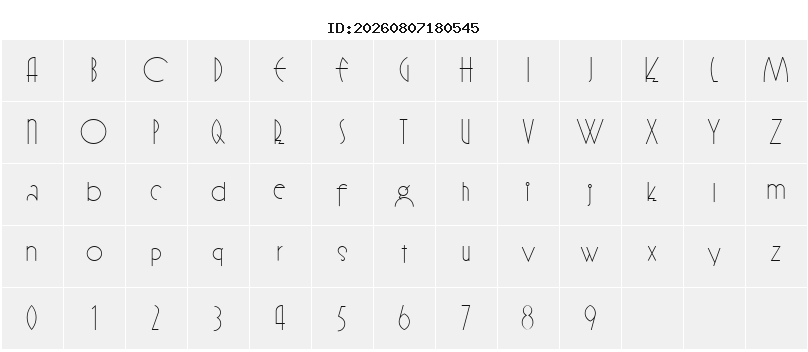
About OKChoraleNF BETA.ttf
OKChoraleNF BETA.ttf is a modern, elegant sans-serif font designed for ultimate readability and visual harmony. Perfect for branding, headlines, web design, and print materials.